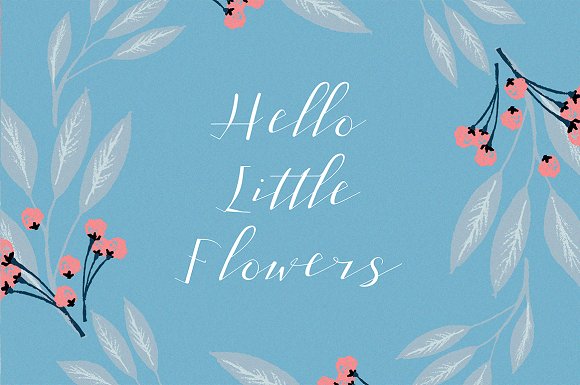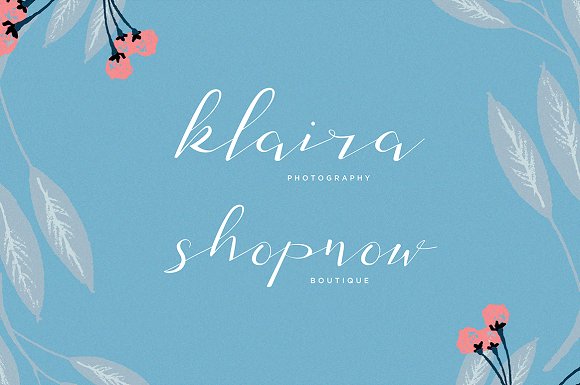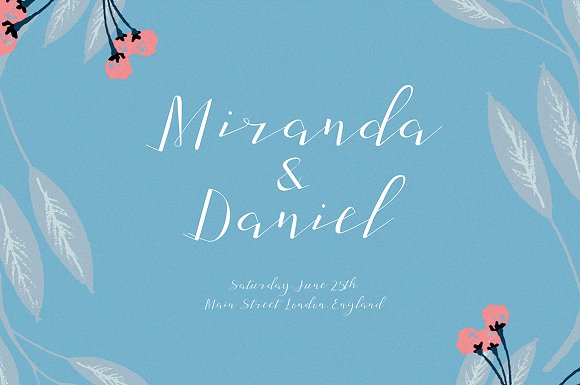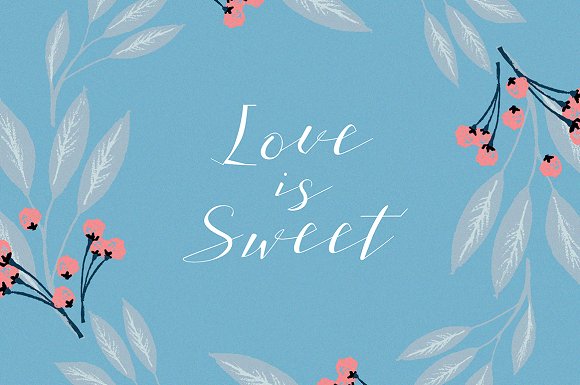
The Handwritten Touch: Unlocking the Power of Adamenya Font
Have you ever been in a creative flow, scribbling down ideas and notes in your favorite journal? The scratch of the pen on paper, the dance of ink on the page – it’s a feeling that can be hard to replicate, but designers are always on the lookout for ways to capture that essence. Enter the Adamenya Font, a beautiful handwritten font created by Area Type that’s designed to evoke the feeling of a handwritten note.
With Adamenya Font, designers can add a touch of warmth and personality to their designs, from branding and marketing materials to digital interfaces and publications. This versatile font is perfect for anyone looking to add a human touch to their work, and its value lies in its ability to connect with audiences on a deeper level.
Adamenya Font Key Features
- Font Family: Adamnya, Adamnya Bold, Adamnya Italic, Adamnya Bold Italic
- Character Set: Latin, Cyrillic, Greek, Extended Latin, Cyrillic Extended, Greek Extended, and many more
- Resolution: Adamnya is designed to be scalable and works well at resolutions up to 300 DPI
- Unique Characteristics: Adamnya features a unique blend of modern and vintage elements, with intricate details and elegant lines, making it perfect for creative projects, branding, and packaging
Adamenya Font Review
Overall, I was pretty impressed with the Adamenya font. ✨ It has a unique, modern aesthetic that could add a nice touch to various design projects. The font family includes a wide range of weights and styles, making it versatile and suitable for a variety of uses.
The fonts look crisp and clean, with well-defined letterforms and smooth connections between letters. ✨ The font also supports multiple languages, which is a big plus for designers who work with international clients or projects.
While Adamenya has its strengths, there are a few areas where it falls short. ⚠️ For example:
- Some of the font’s edges can feel a bit rough or pixelated, which may not be ideal for high-resolution designs.
- The font may not be as suitable for use in very small text sizes or at extreme angles.
- The font family could benefit from more extensive language support, although it does cover a significant number of languages.
While Adamenya has its limitations, I think it’s a solid choice for designers looking for a modern, versatile font. With a bit of caution and consideration for potential limitations, this font can add a nice touch to a variety of design projects.
Getting the Most Out of Adamenya Font
For optimal results, use the Adamenya font in designs that require a unique, cursive look. This font is particularly well-suited for:
- Handwritten-style quotes and captions.
- Vintage-inspired designs.